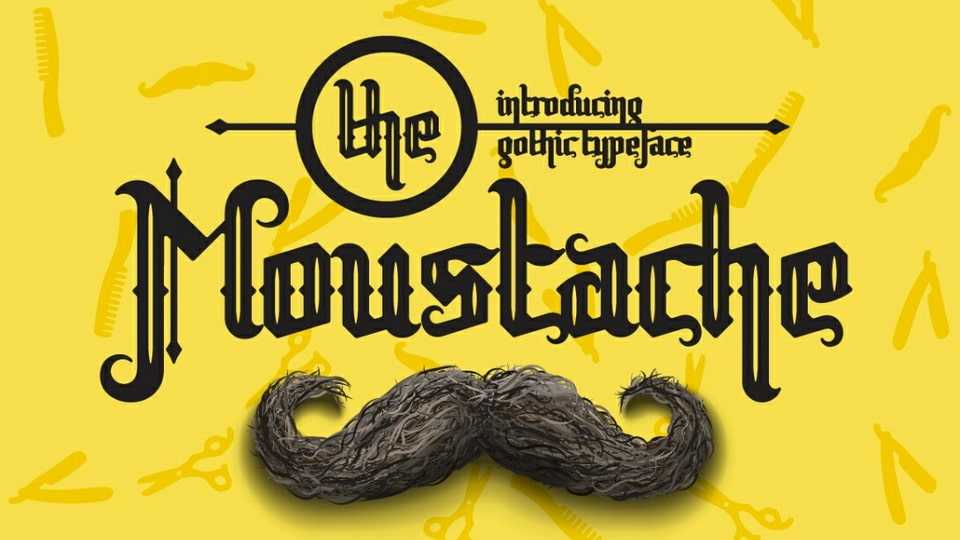
Download Moustache font, a vintage gothic typeface with a classic, elegant, vintage, and clean feel. Moustache comes with 2 styles ornate one and simple bold style.